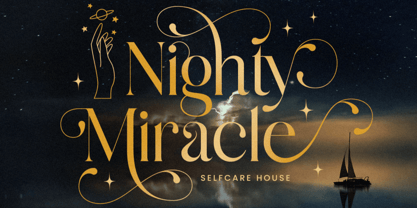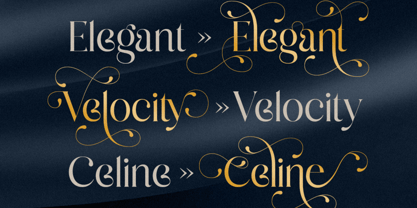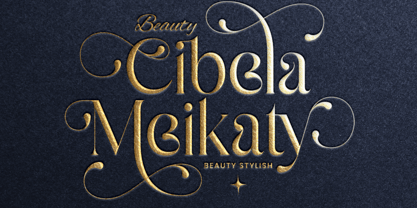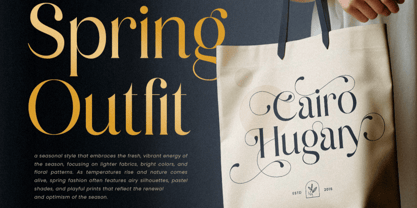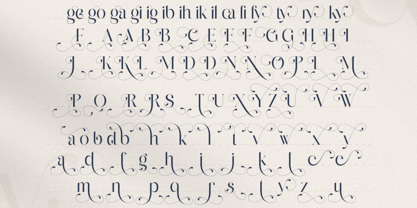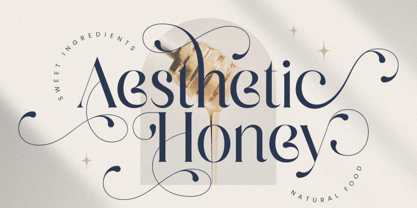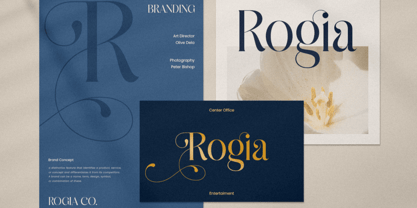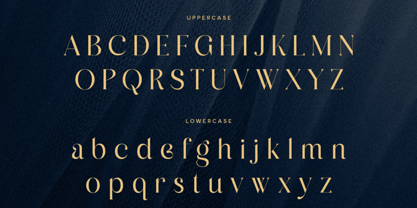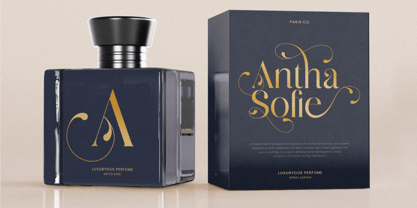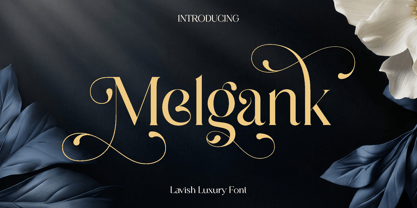
Melgank
The Melgank Font Family was designed by Olivia Love and published by Only Fonts. Melgank contains 1 styles. More about this family
Melgank – Lavish Luxury Logo Font Melgank is a lavish luxury logo font designed to infuse elegance, glamour, and exclusivity into premium branding projects. Drawing inspiration from the allure of high fashion, luxury jewelry, and sophisticated editorial design, Melgank showcases refined letterforms with graceful details that evoke a sense of prestige. Each character is meticulously crafted to provide a polished and luxurious appearance, ensuring your typography remains timeless and unforgettable. Ideal for creators aiming to make a bold and elegant statement, Melgank excels in luxury logos, fashion branding, cosmetic packaging, wedding invitations, boutique labels, magazine titles, and upscale social media visuals. Its stylish structure and sparkling personality enable your designs to exude confidence and sophistication across both print and digital platforms. Melgank merges modern luxury with artistic refinement, offering designers the versatility to create unique and visually captivating typography. The included ligatures and alternate characters contribute a custom touch to every composition, enhancing the exclusivity and professionalism of your branding. Whether utilized for elegant headlines or refined logo identities, Melgank elevates ordinary text into a luxurious visual experience. With its timeless charm and graceful aesthetic, Melgank is more than just a font; it is a creative tool for designers seeking to craft memorable visuals filled with beauty, prestige, and high-end elegance. Melgank Lavish Luxury Logo Font Features: • Unique ligature and alternate characters ready • Punctuation, numbers, and symbols • Uppercase and lowercase • OpenType features • Multilingual support • Elegant luxury logo style • Perfect for branding, invitations, packaging, and editorials